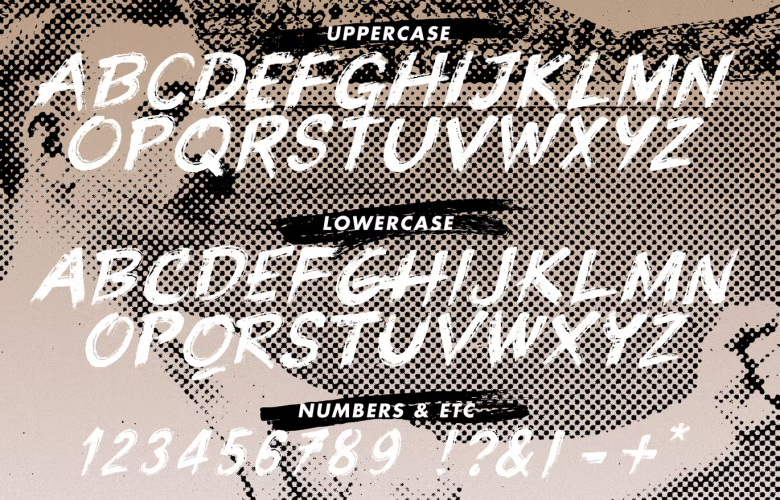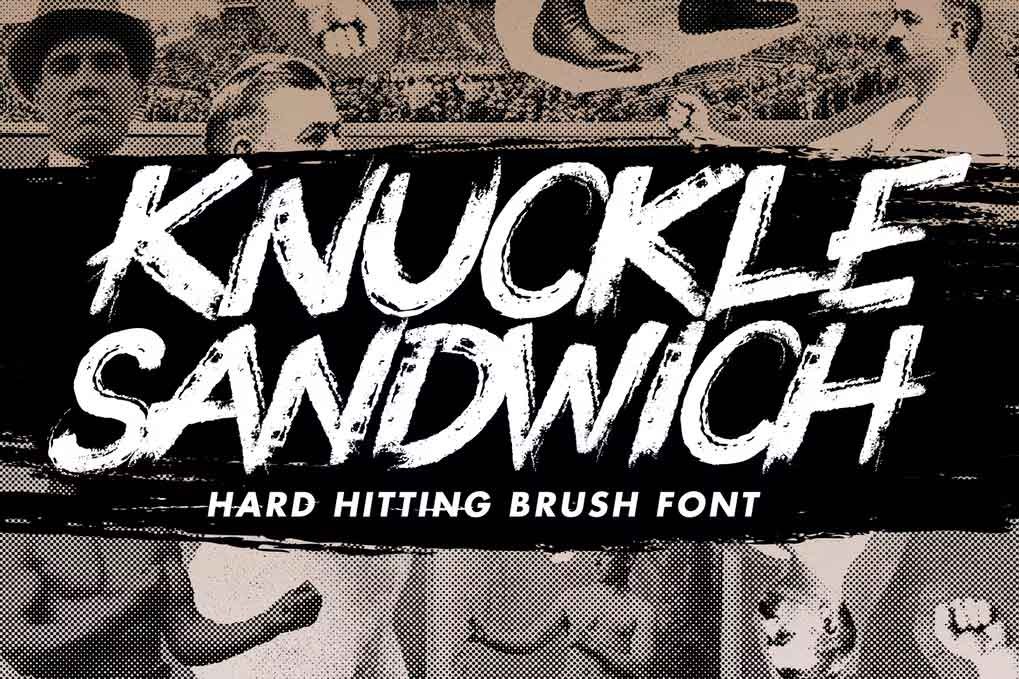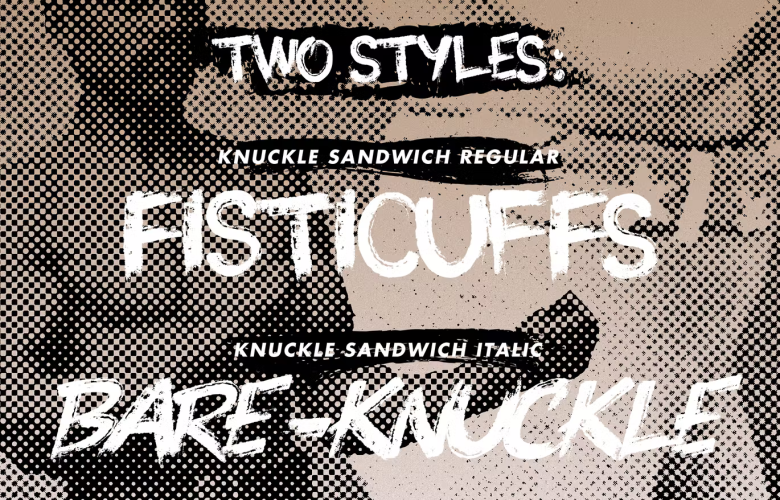
Knuckle Sandwich Font
Introducing Knuckle Sandwich. A hard hitting brush font with over 300 glyphs. Uses uppercase and lowercase for stylistic alternates, for ease and quickness.
Quick dry strokes and a rough style, Knuckle Sandwich is perfect for branding projects, art prints with an edge, product packaging – or as a text overlay with attitude to a nice background image.